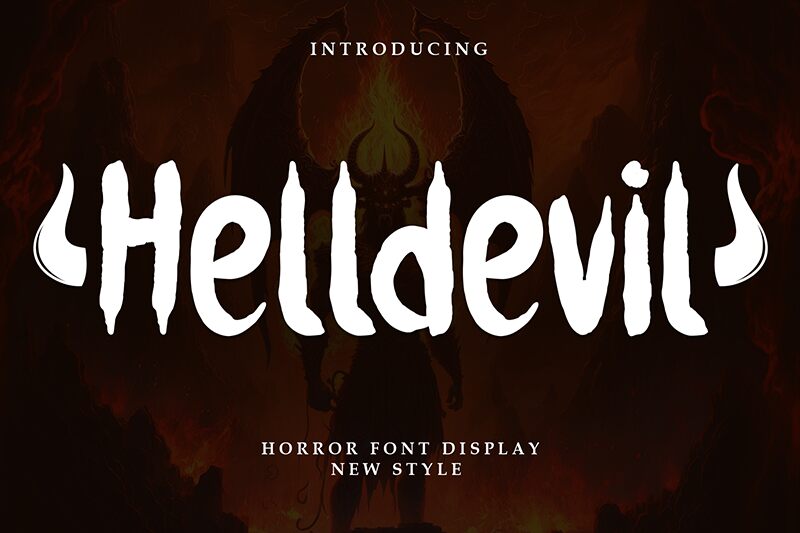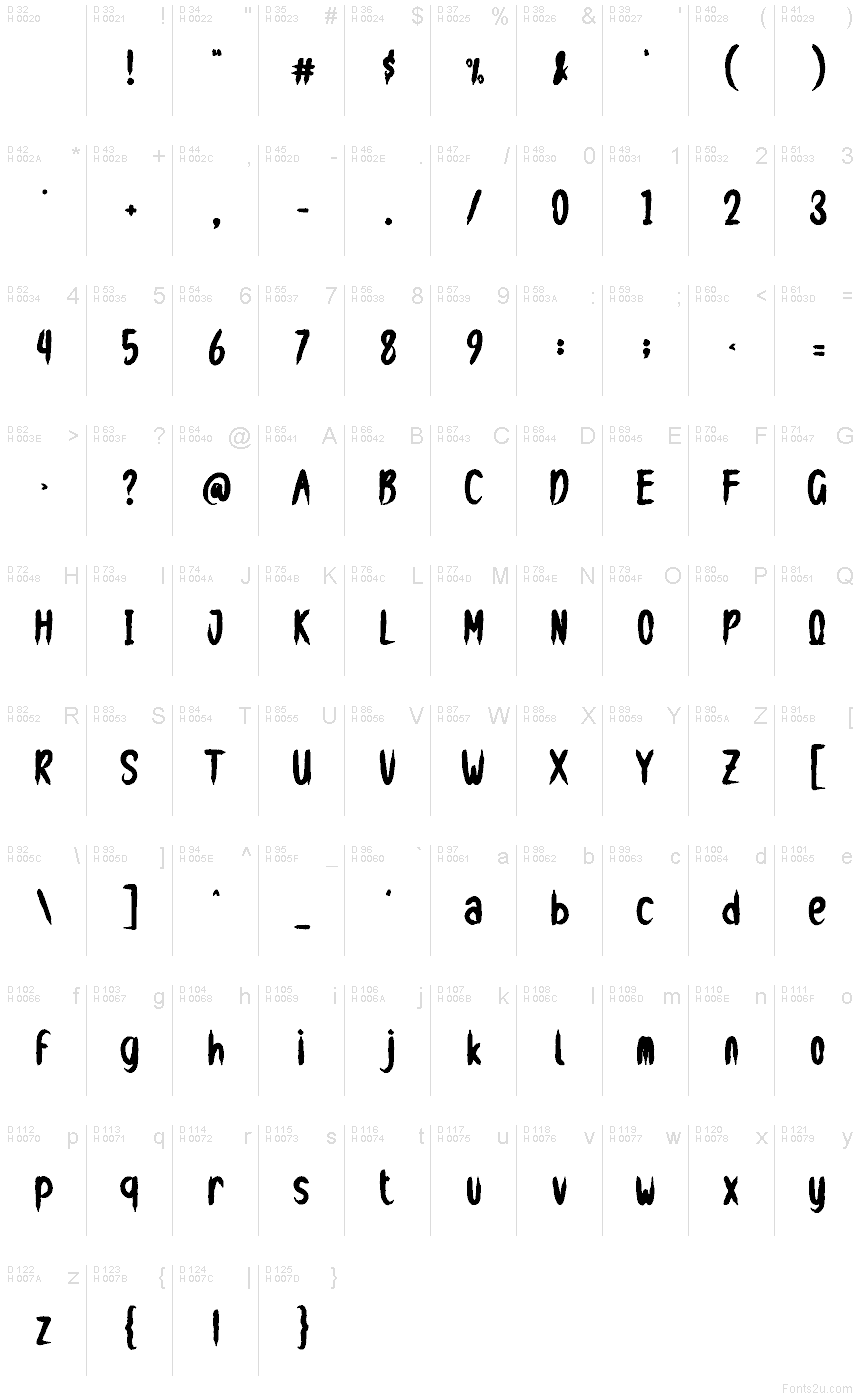
Helldevil
Helldevil font by Andi Moz is a free scary display font that leans into hand-brushed chaos. Thick, inky strokes swell and taper like wet paint, with edges that feel torn rather than trimmed—great when you need headline letters that look alive and a little unhinged. The rhythm is uneven in a deliberate way, giving words a creeping, cinematic tension without losing readability at larger sizes.
Using Helldevil, your titles instantly cue horror and suspense. It shines on Halloween posters, haunted attraction signage, thriller book covers, game splash screens, YouTube thumbnails, and metal band merch. Set it big with slightly tighter tracking for punch, and pair this free font with a clean condensed sans for secondary text to keep the scare legible.